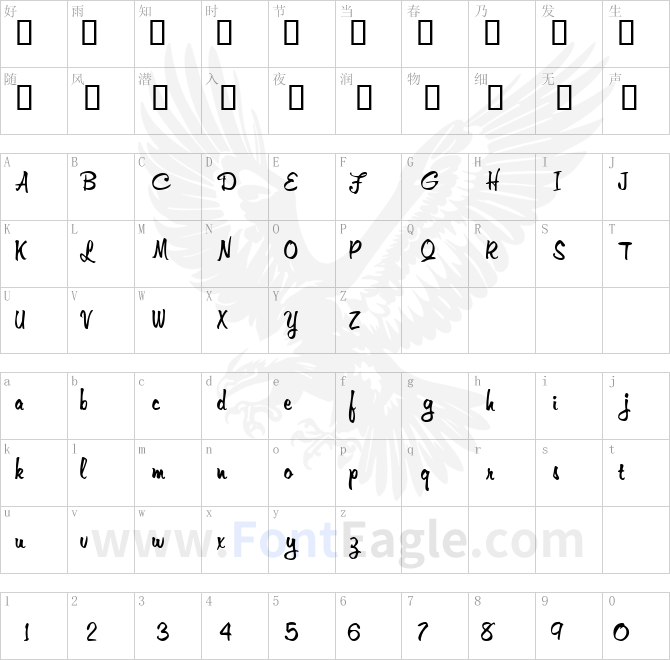
- Font name:Memo
- Font Subfamily ID:Macromedia Fontographer 4.1 Memo Normal
- Font Full Name:Memo Normal
- Font Version:Macromedia Fontographer 4.1 9/20/96
- Postscript:MemoNormal